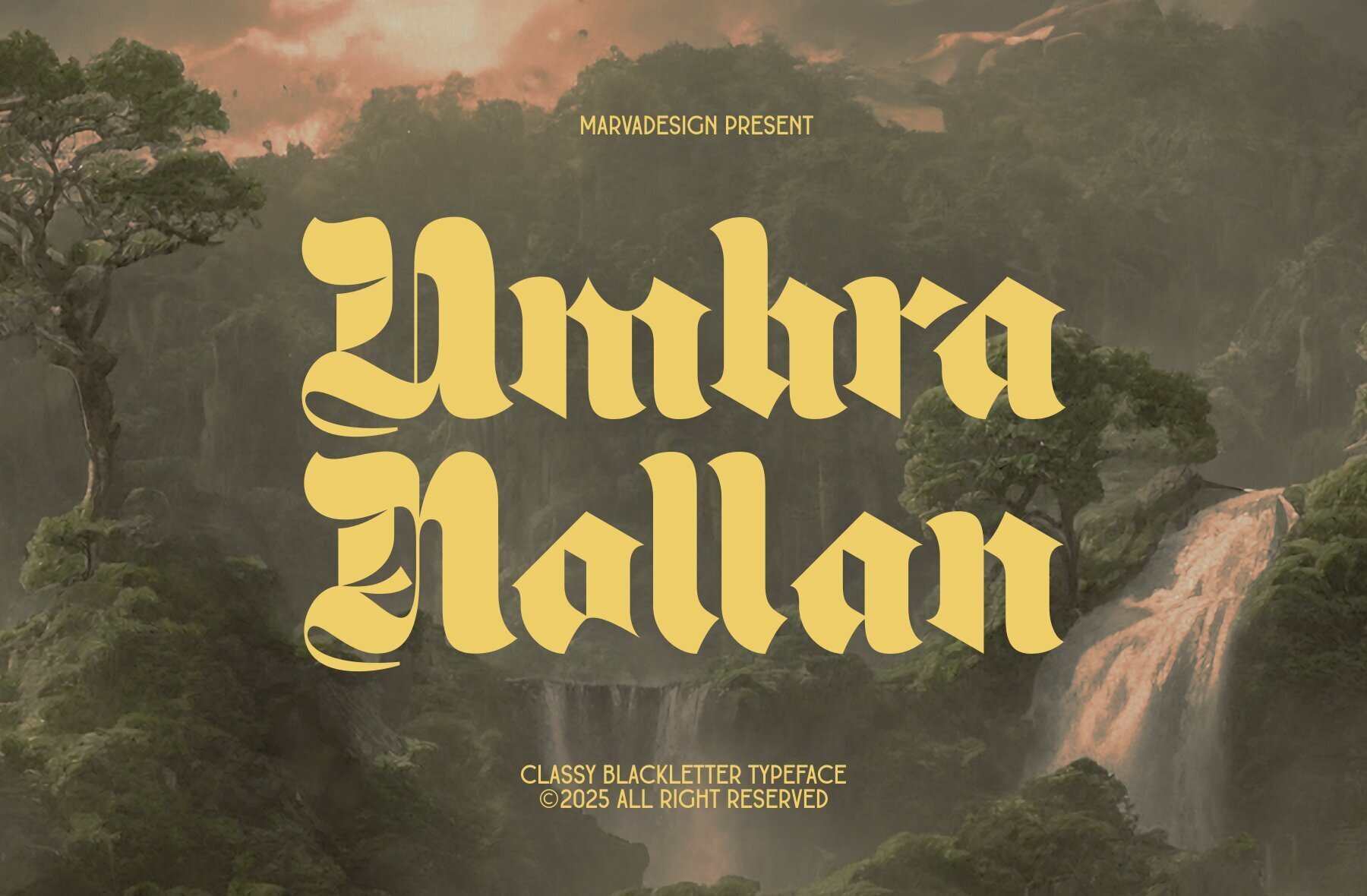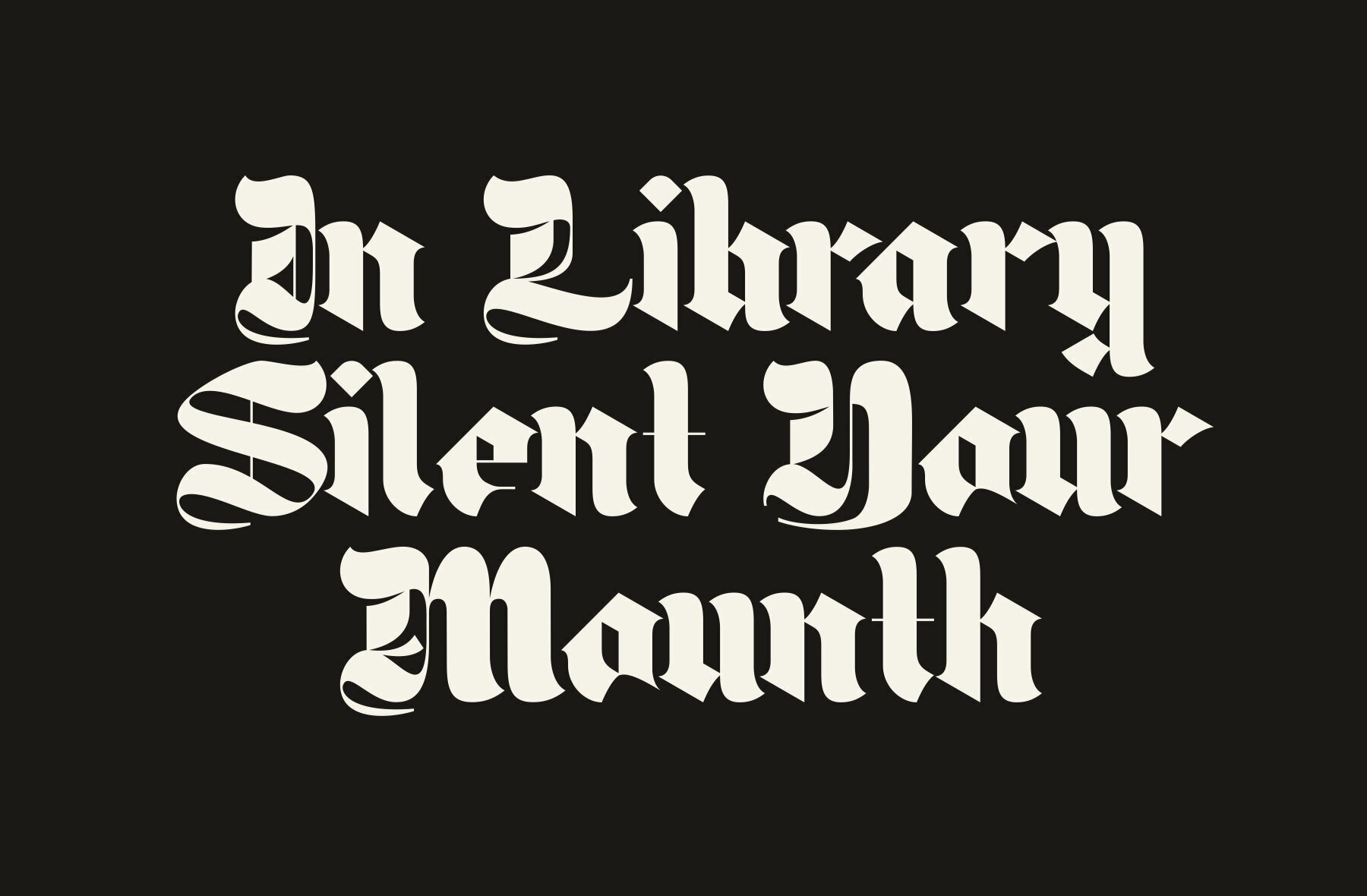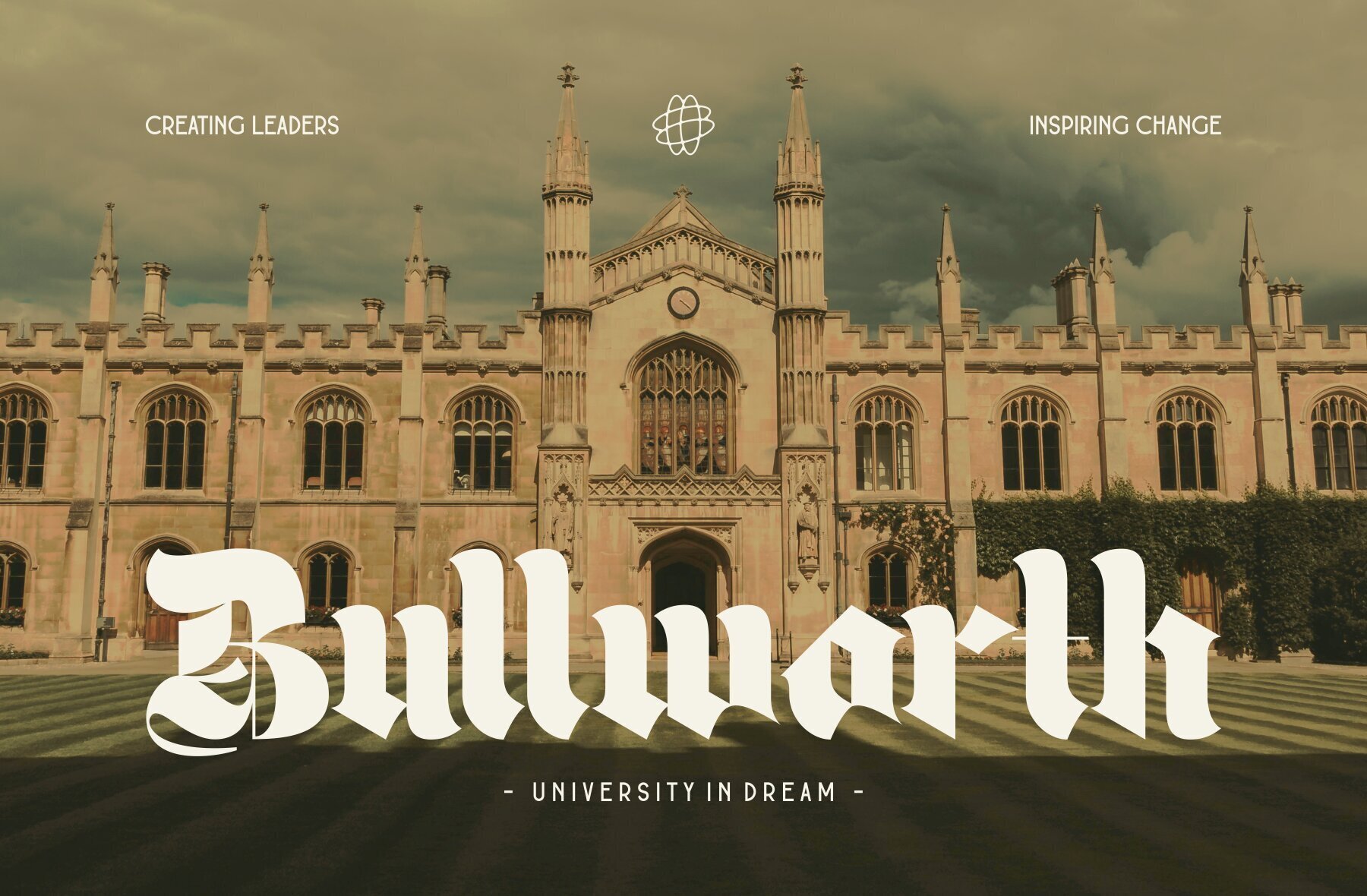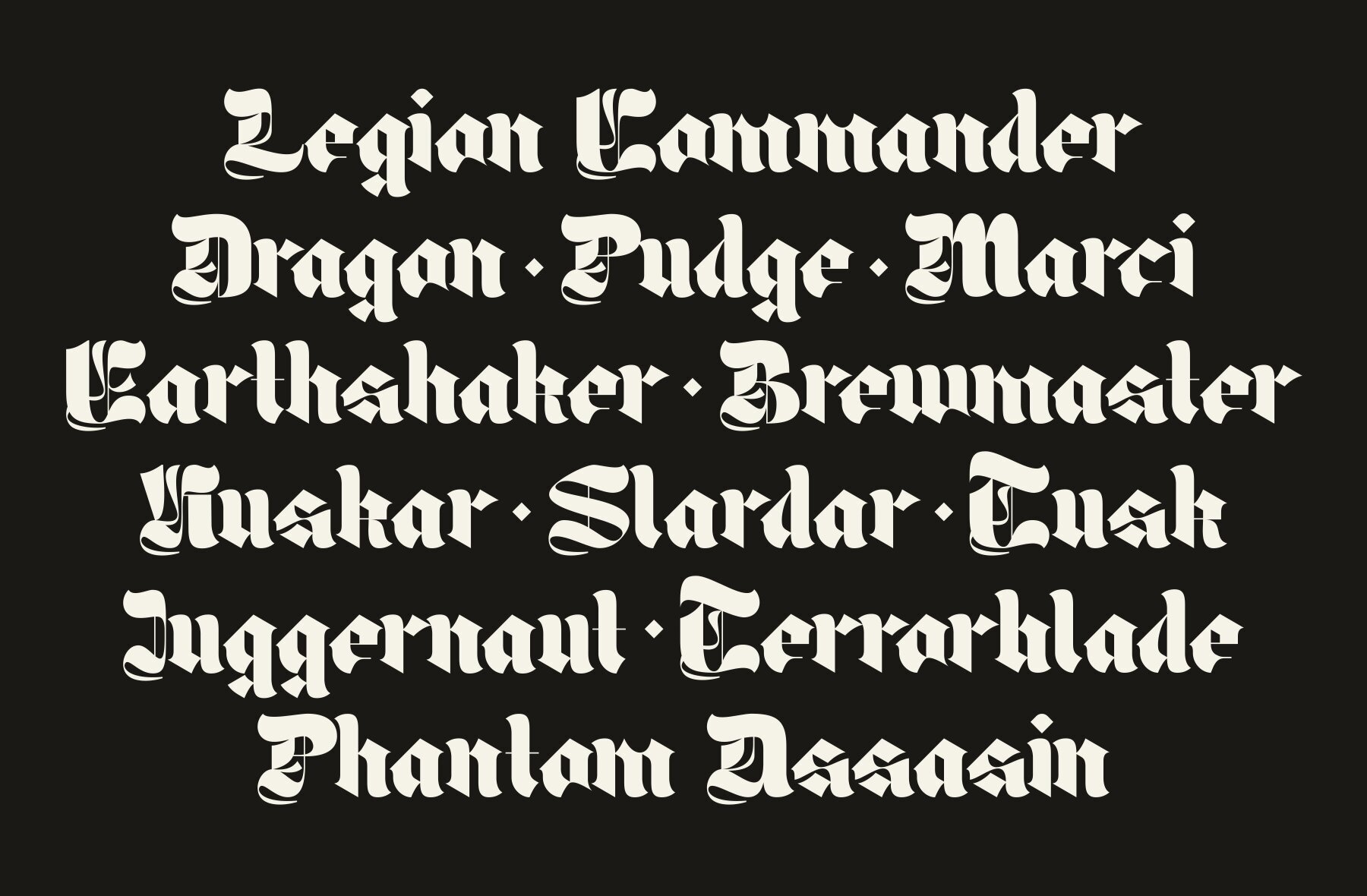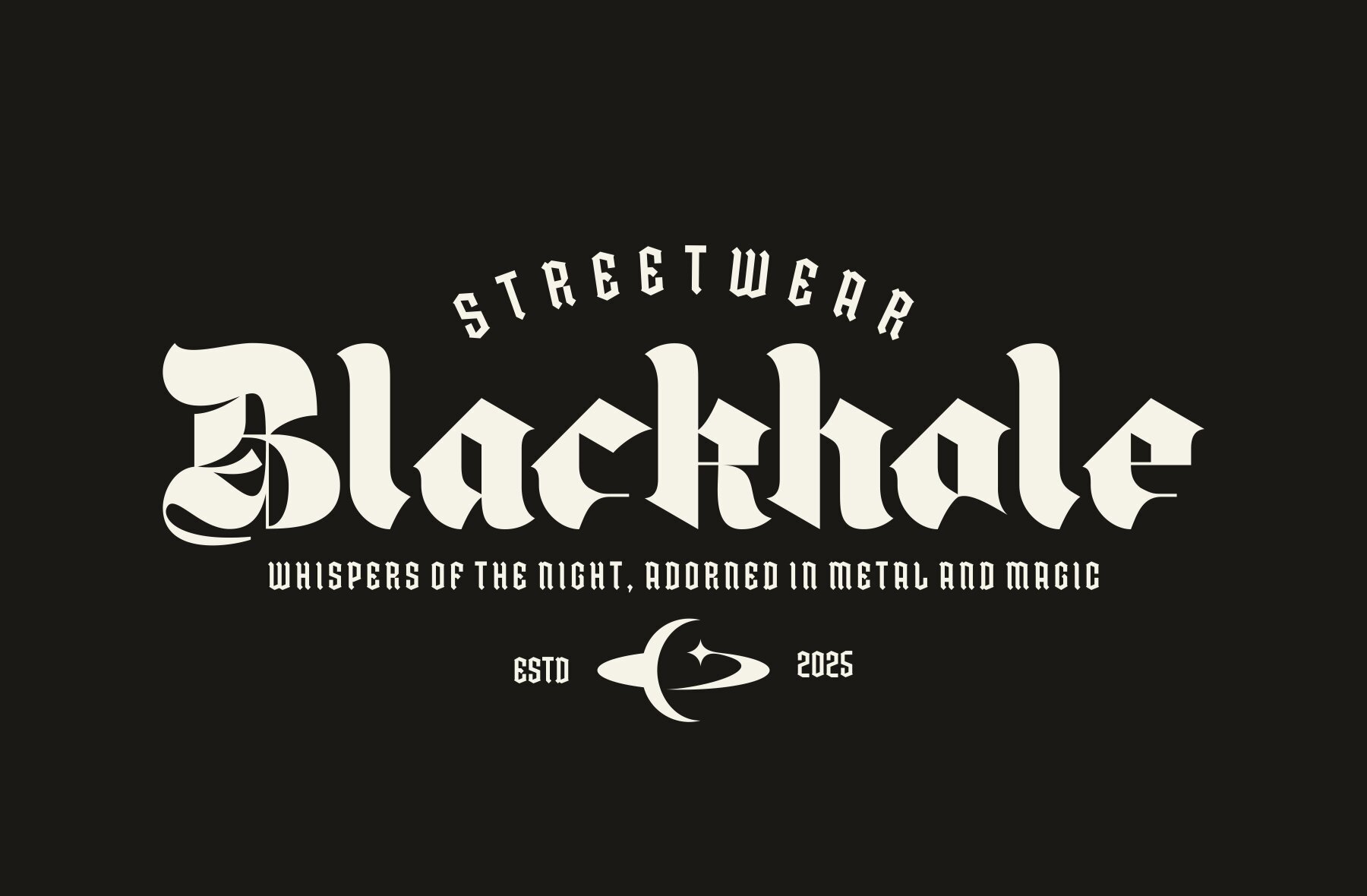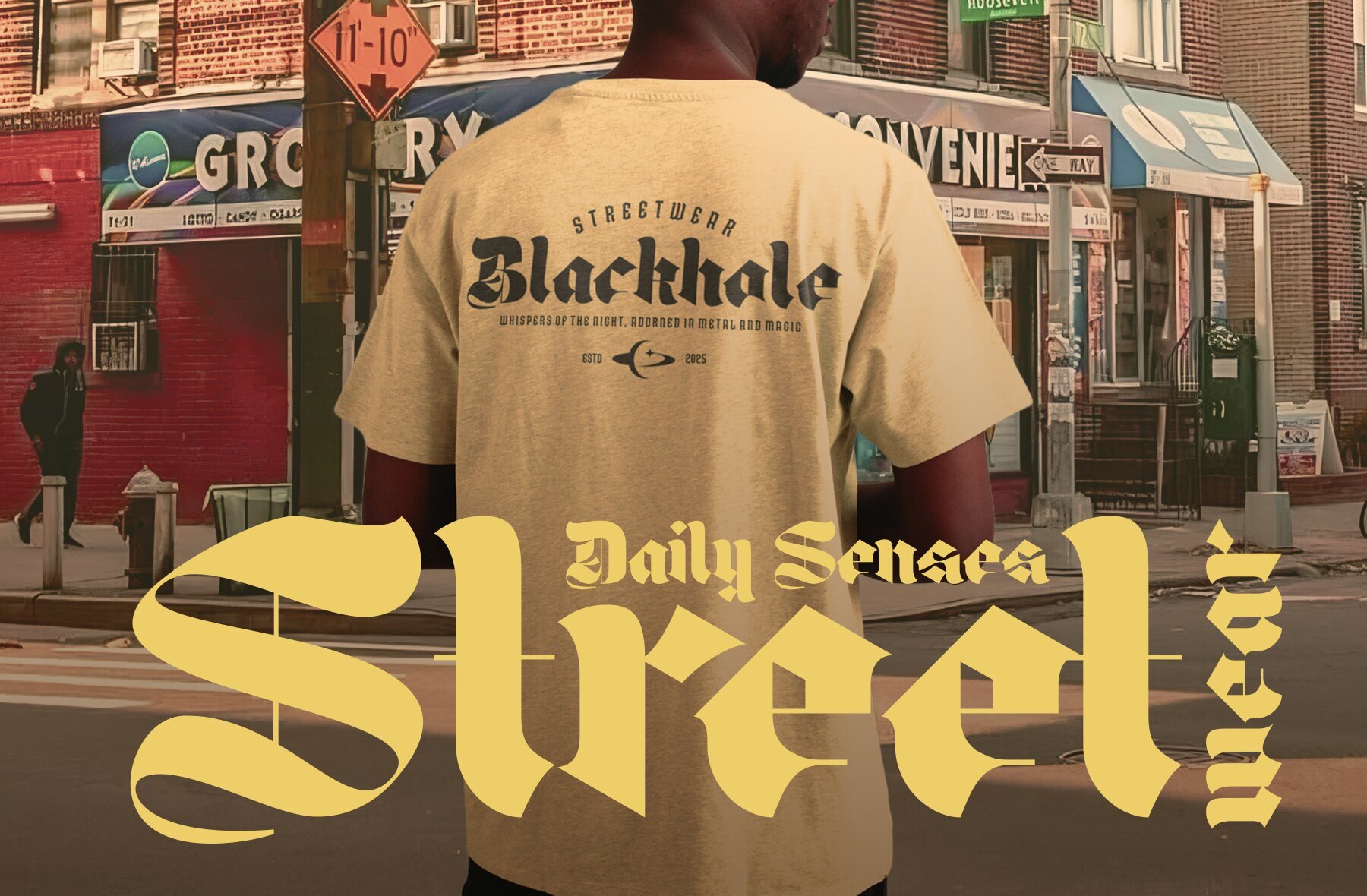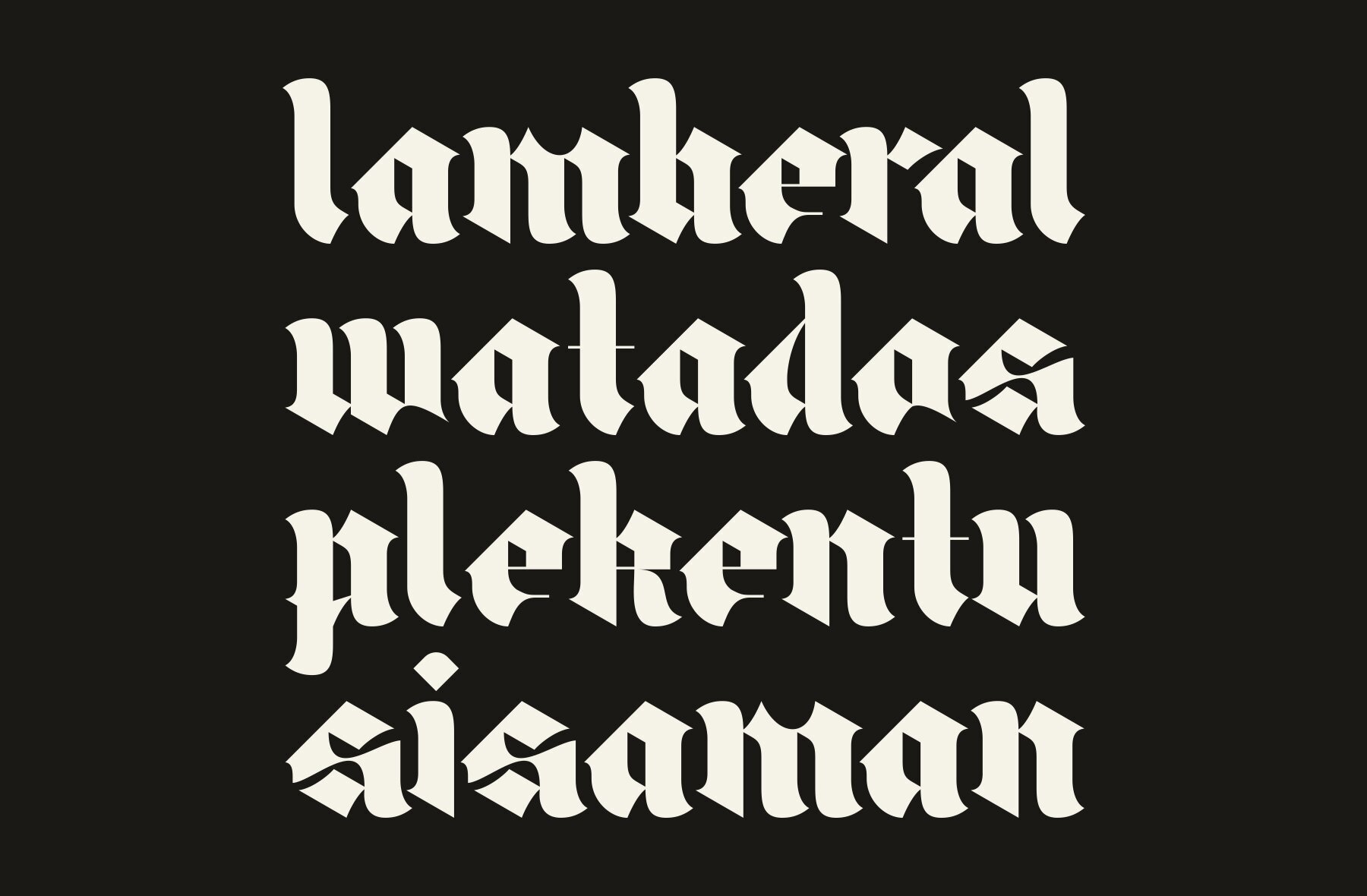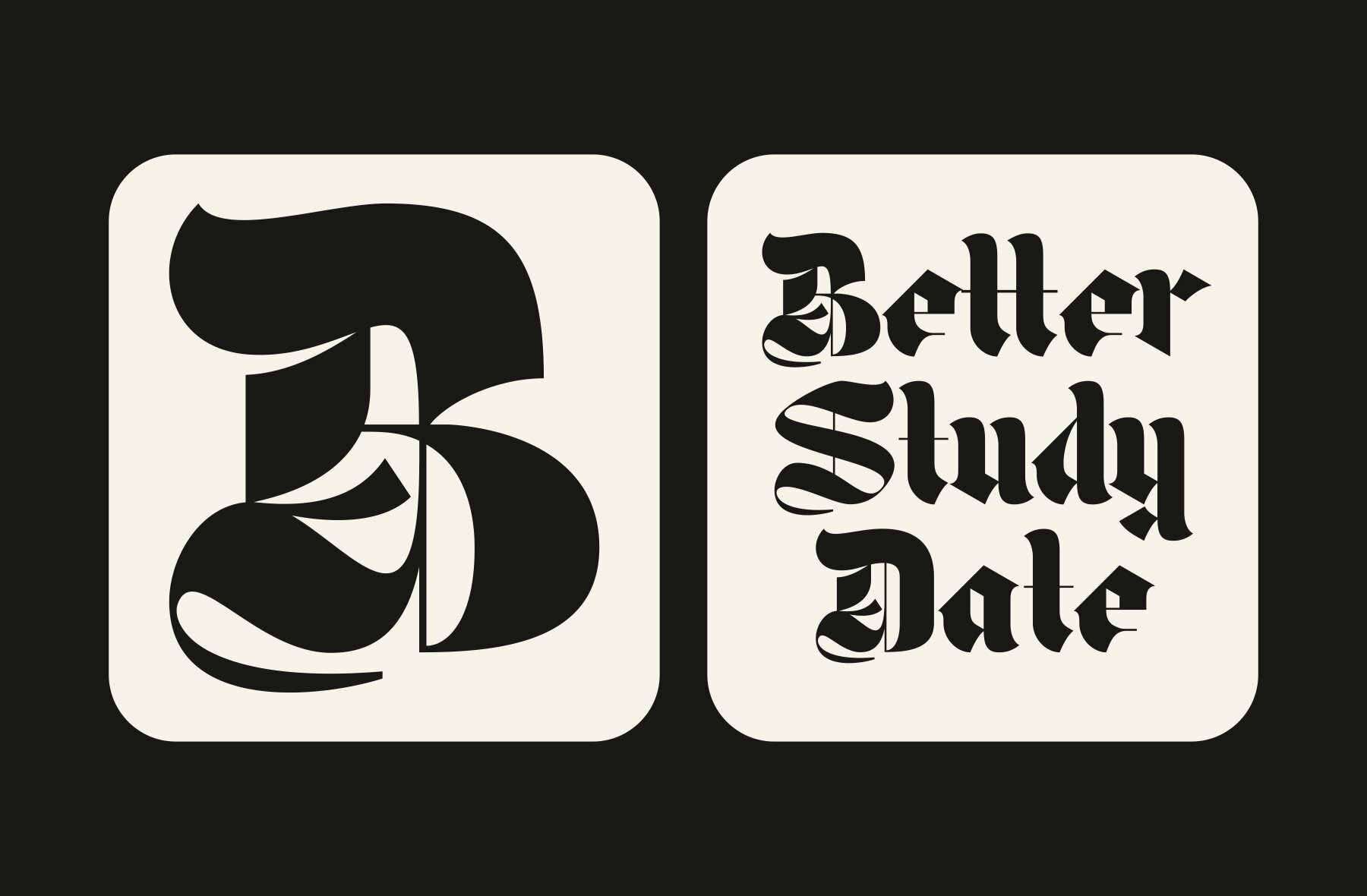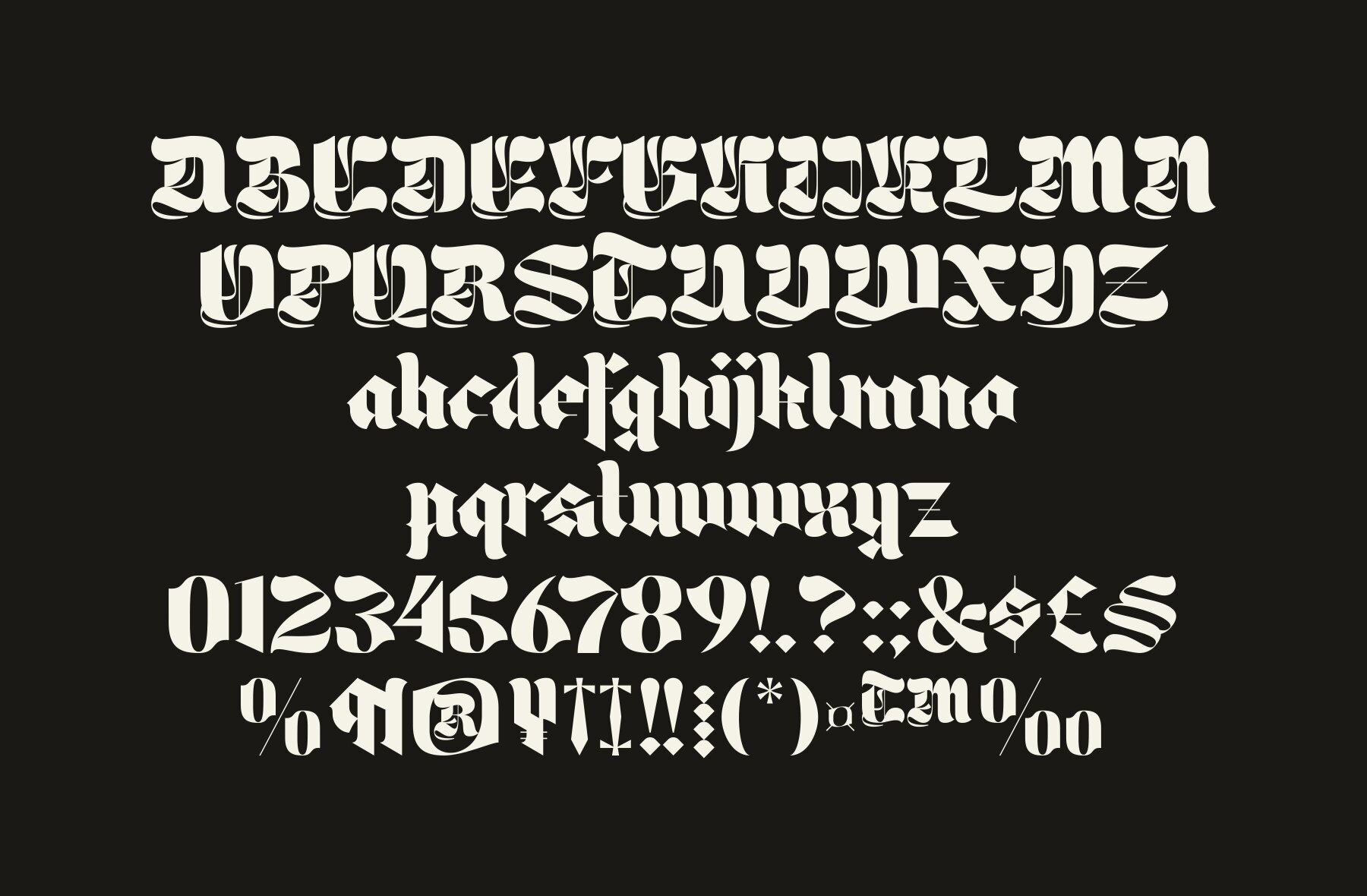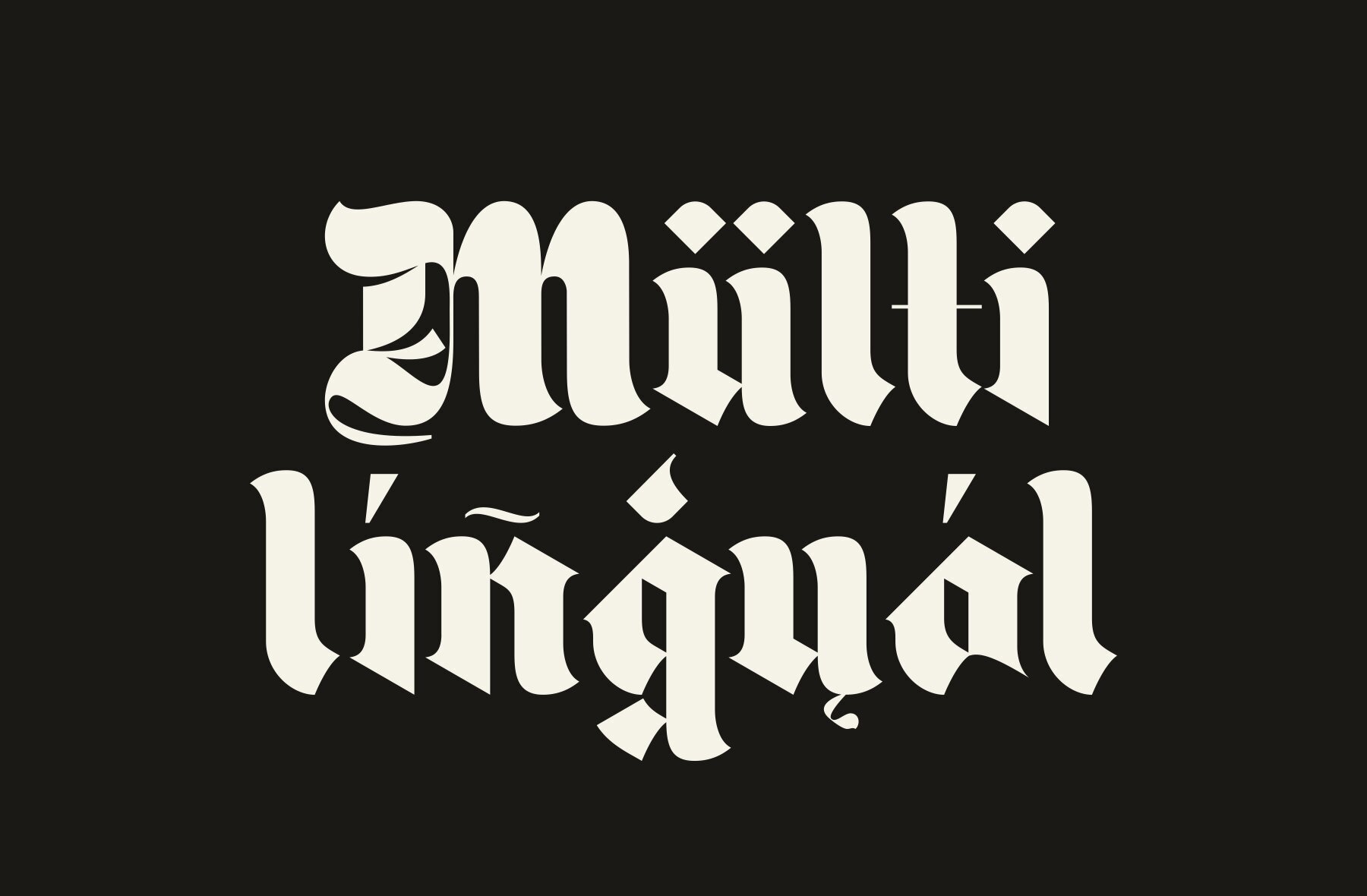
Umbra Nollan Font
expand_font Umbra Nollan Font Unleash the power of history and sophistication with Umbra Nollan, a bold Blackletter typeface for impactful designs. Blackletter,Classic,Heritage,Medieval,Gothic,Tattoo,Decorative,Dark,Old Style,Old English,Monumental,Ornate,Textura,Tradition,Historical,Intricate,German Explore Exceptional Fonts for Digital and Traditional Media Fontpath offers a large variety of fonts for every designer, all at affordable prices and in multiple formats. Browse our best in class fonts today for all your creative needs, you can find everything you need right here at our site! Fonts,sans,sans serif,retro,script,decorative,title,FontPath 20140312040223 Fontpath offers 200,000+ of the most professional fonts found online, start downloading today! Real-Time Font Discovery at Fontpath